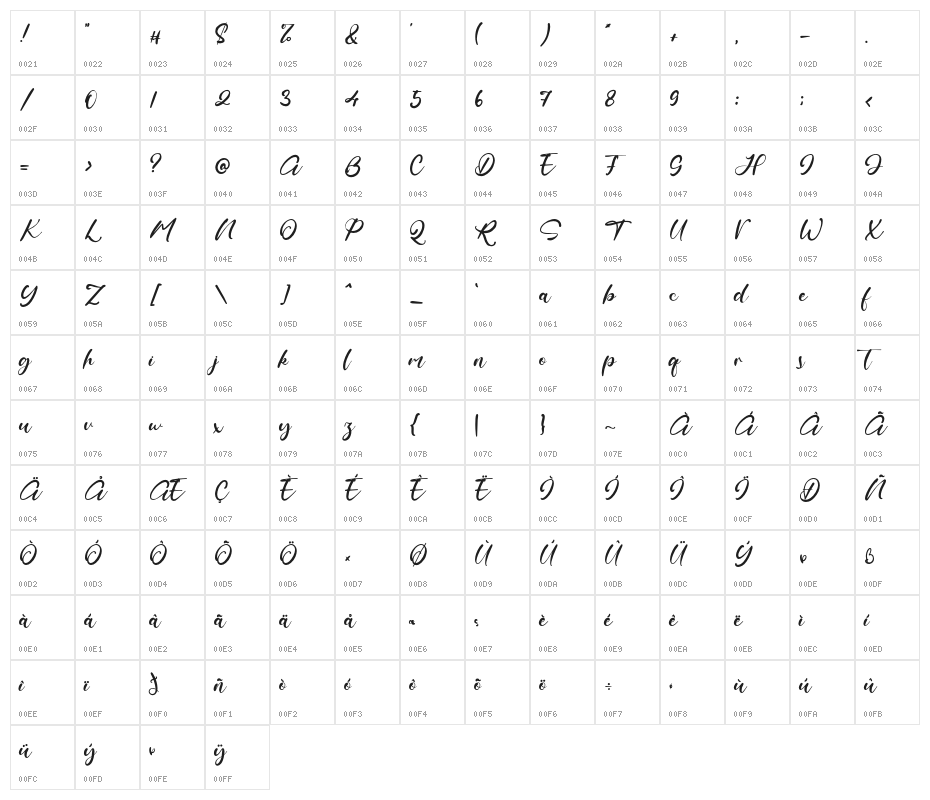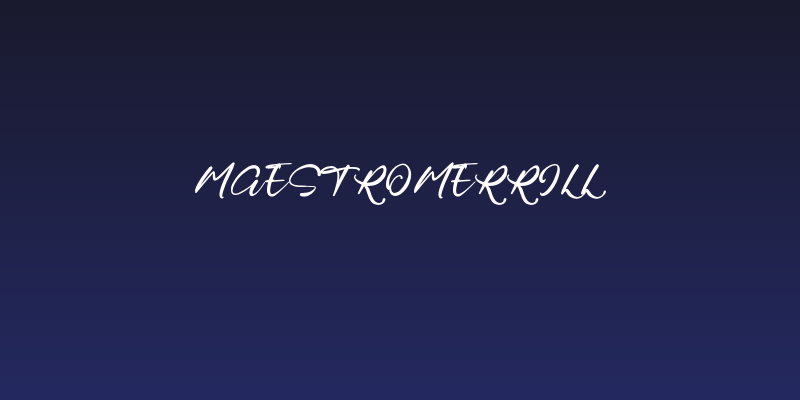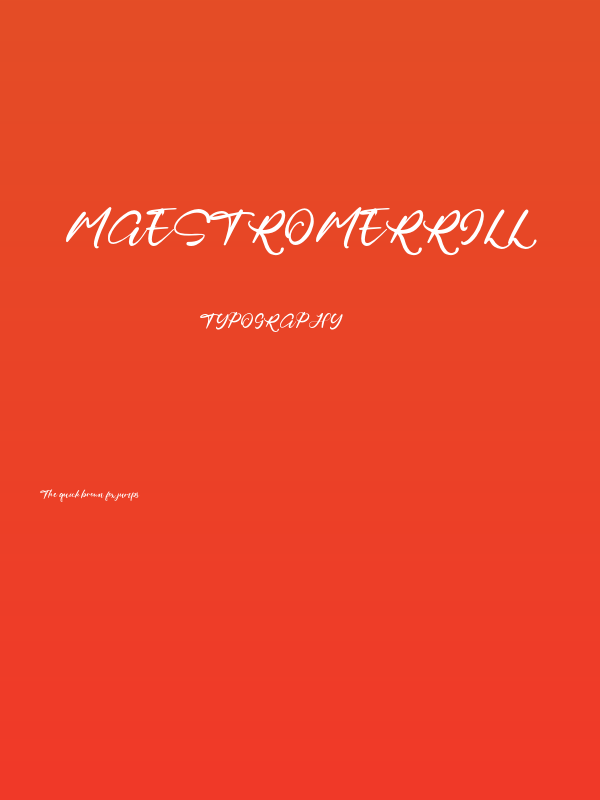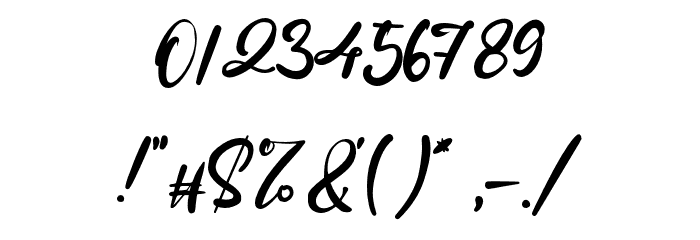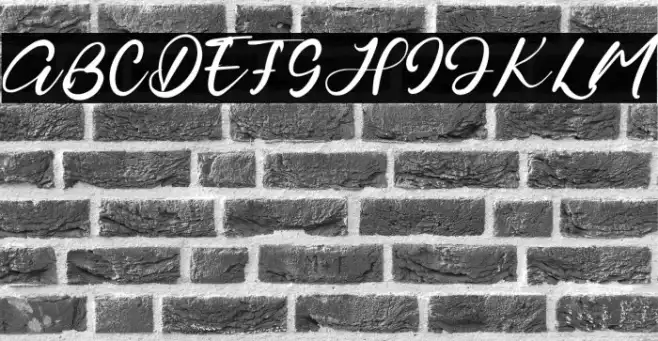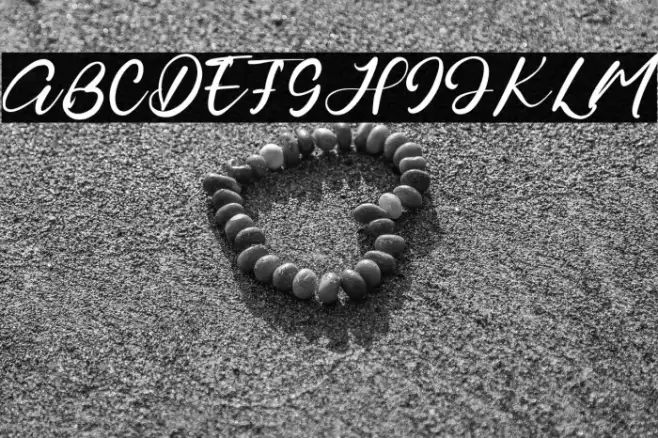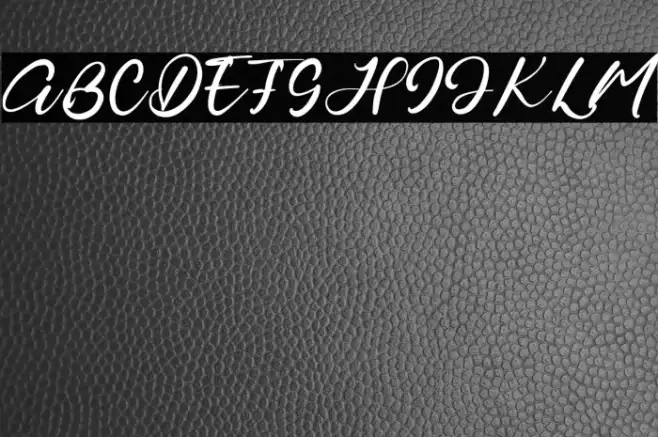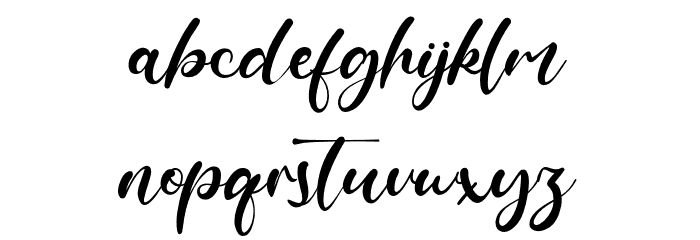
MaestroMerrill Font
MaestroMerrill Description
This font exudes elegance and fluidity, characterized by its cursive, handwritten style. The letters are interconnected, creating a seamless flow that mimics natural handwriting. The uppercase letters are bold and prominent, while the lowercase letters maintain a consistent rhythm and grace. The numerals and special characters are crafted with the same attention to detail, ensuring a cohesive look across all elements. The strokes vary in thickness, adding a dynamic contrast that enhances readability and visual interest. This font is perfect for projects that require a personal touch or a sophisticated aesthetic.
| Proposed Projects | Ideal for wedding invitations, greeting cards, branding, and elegant packaging design. |